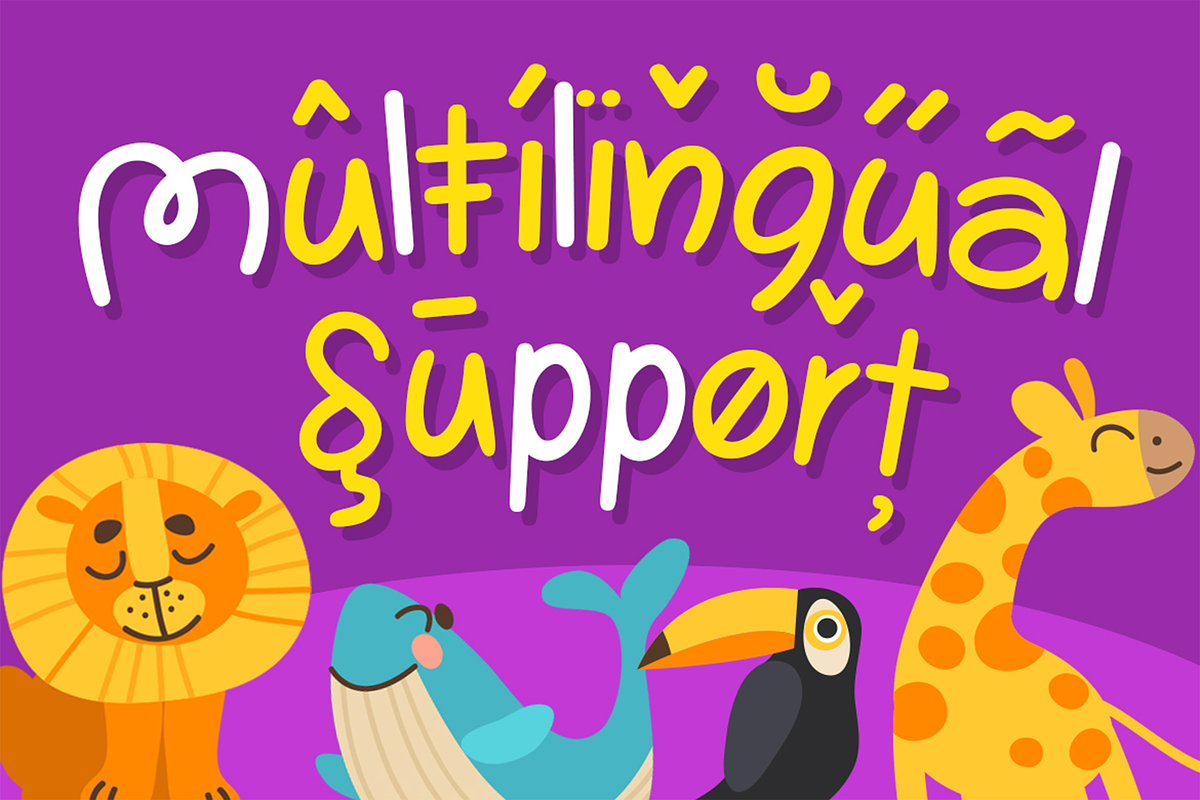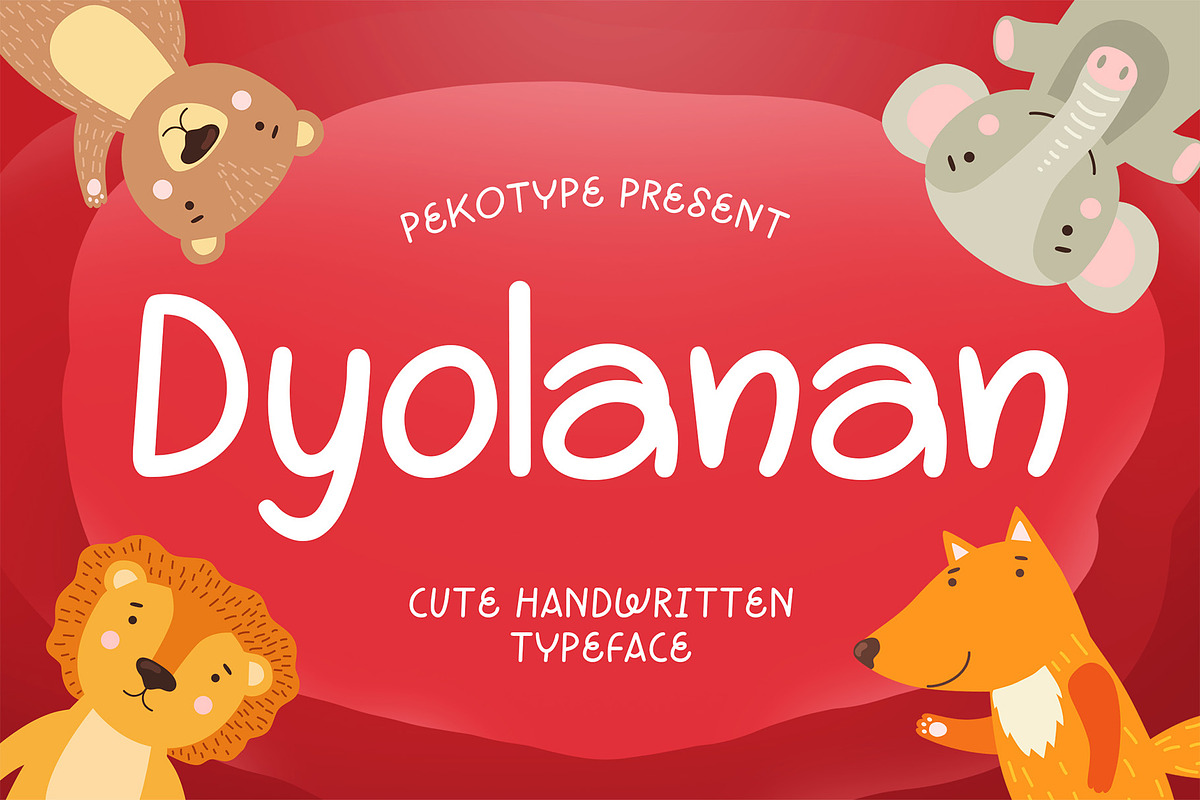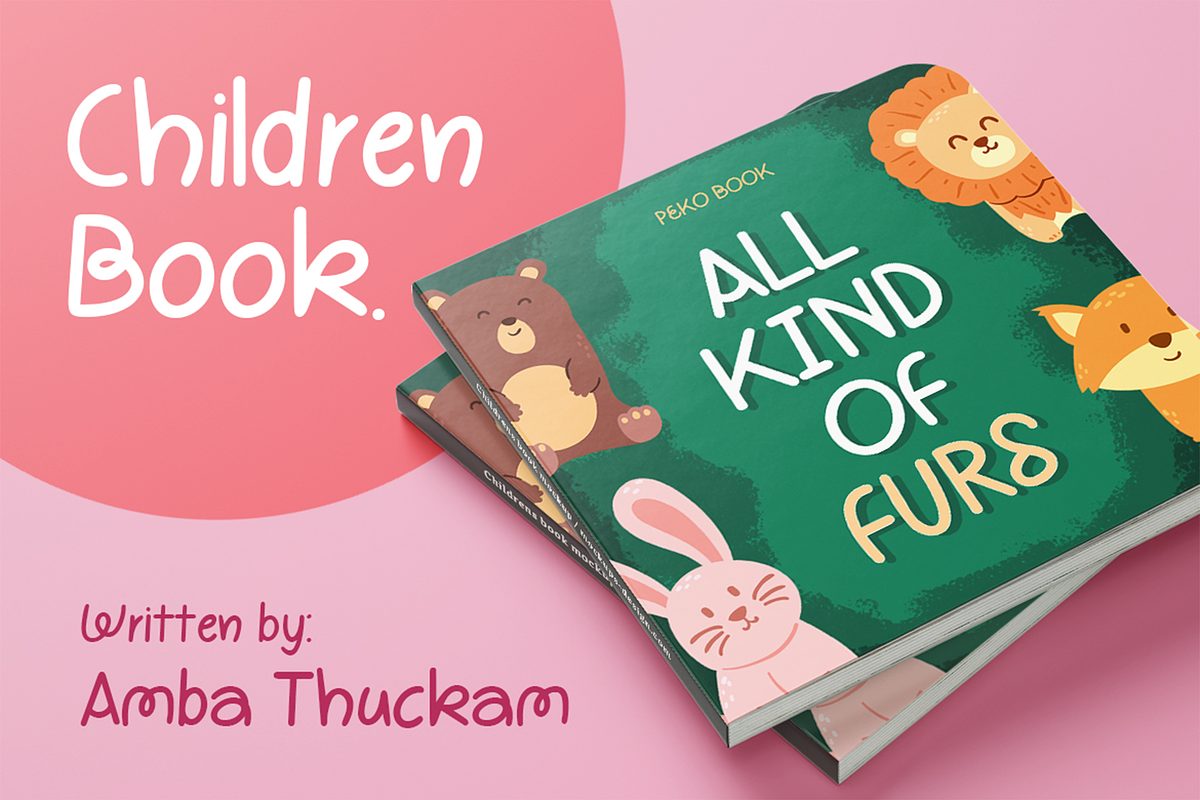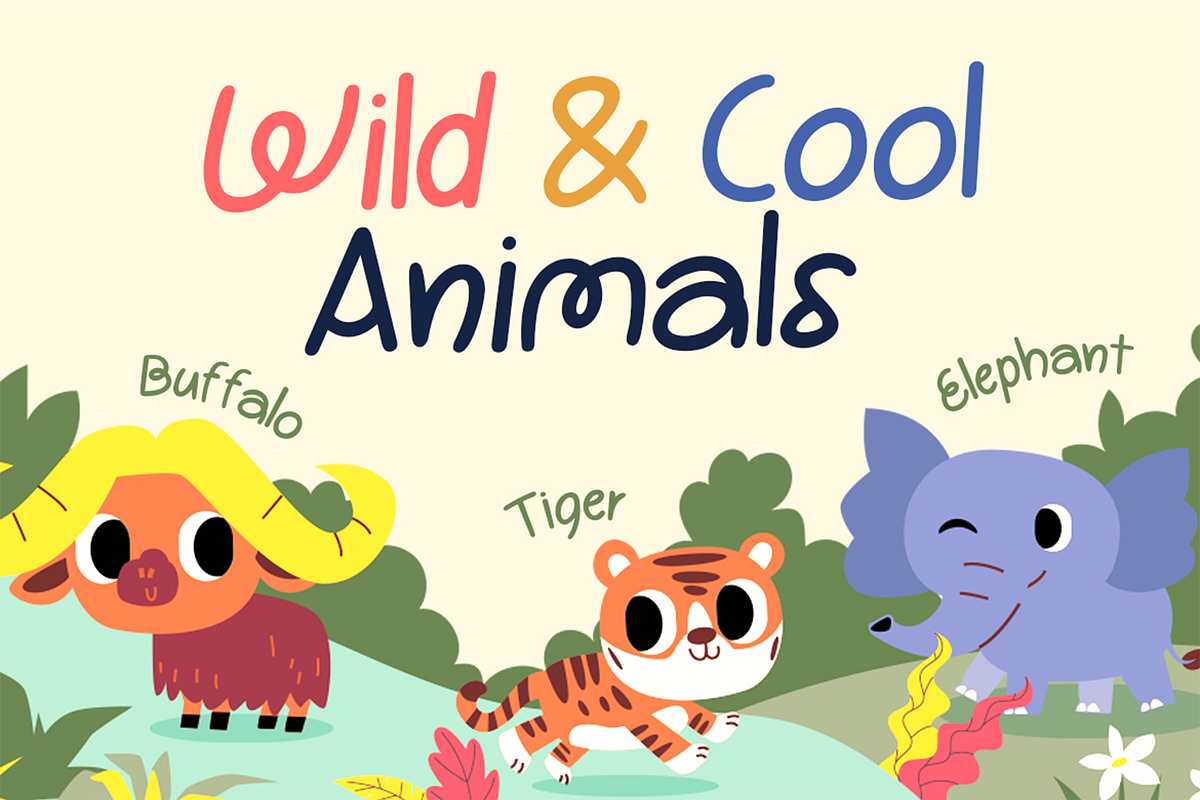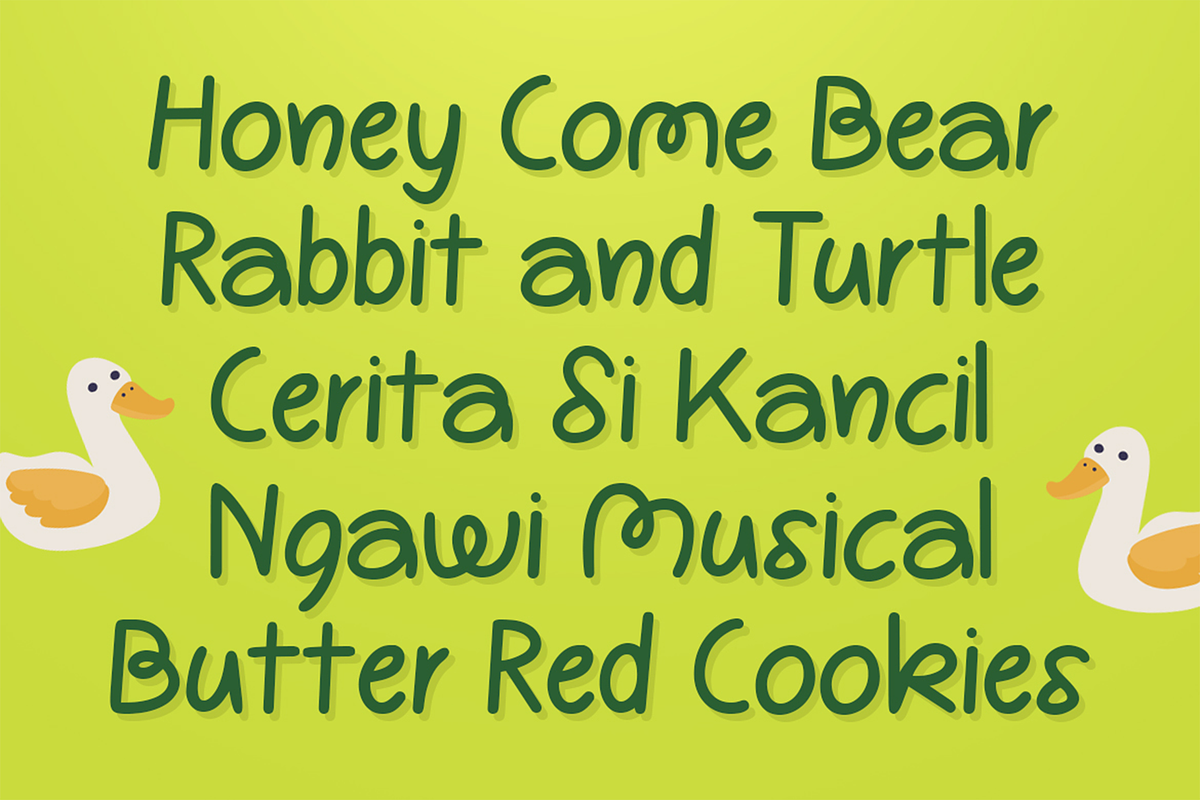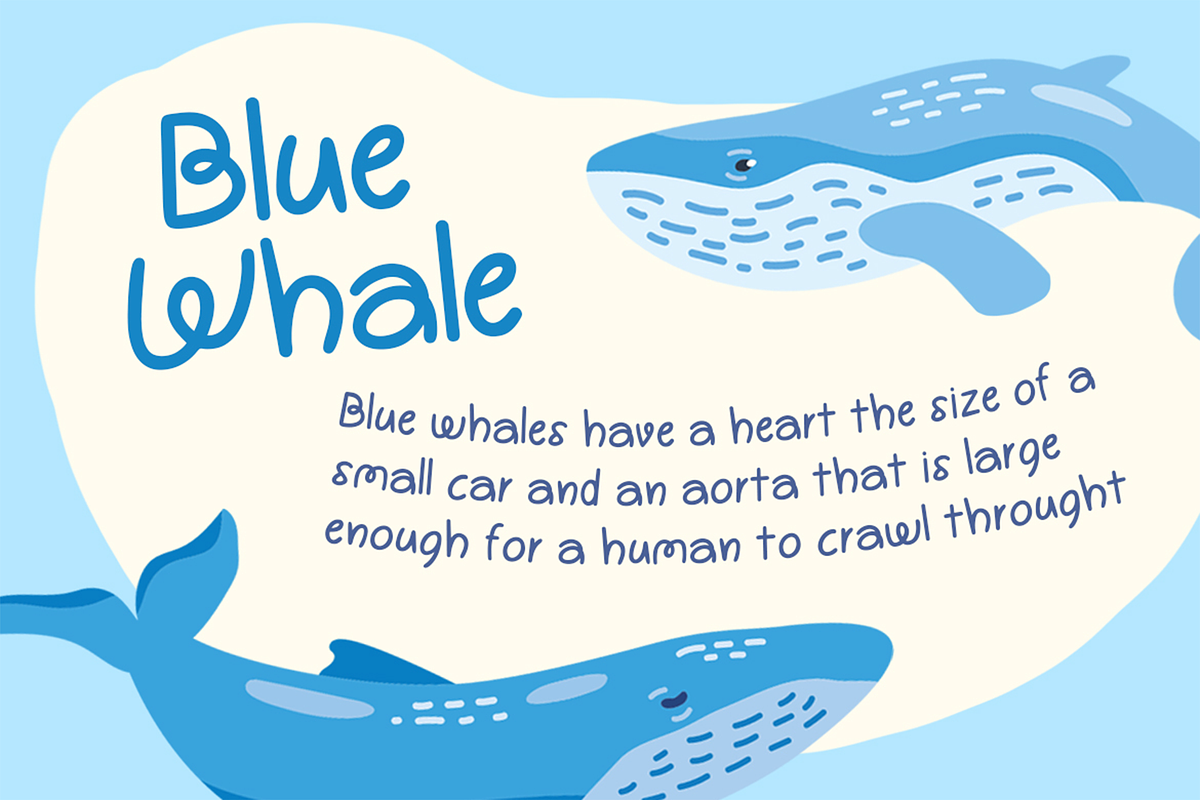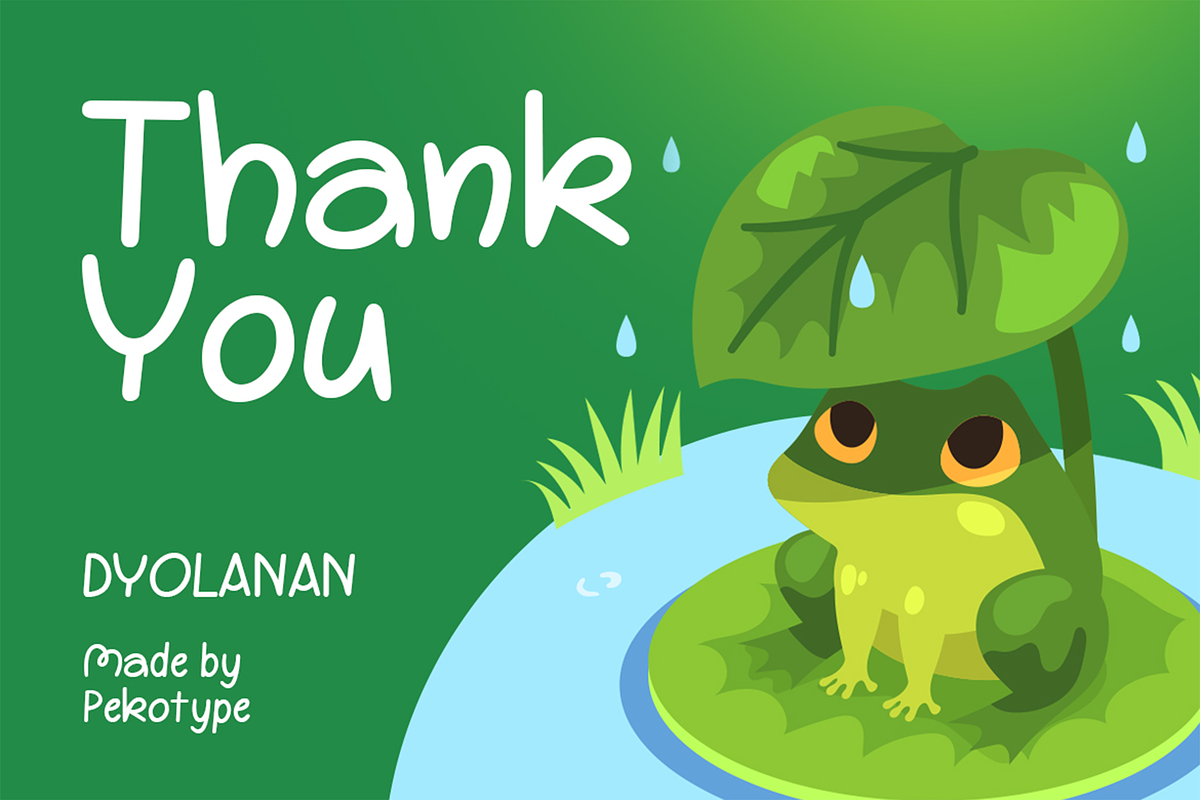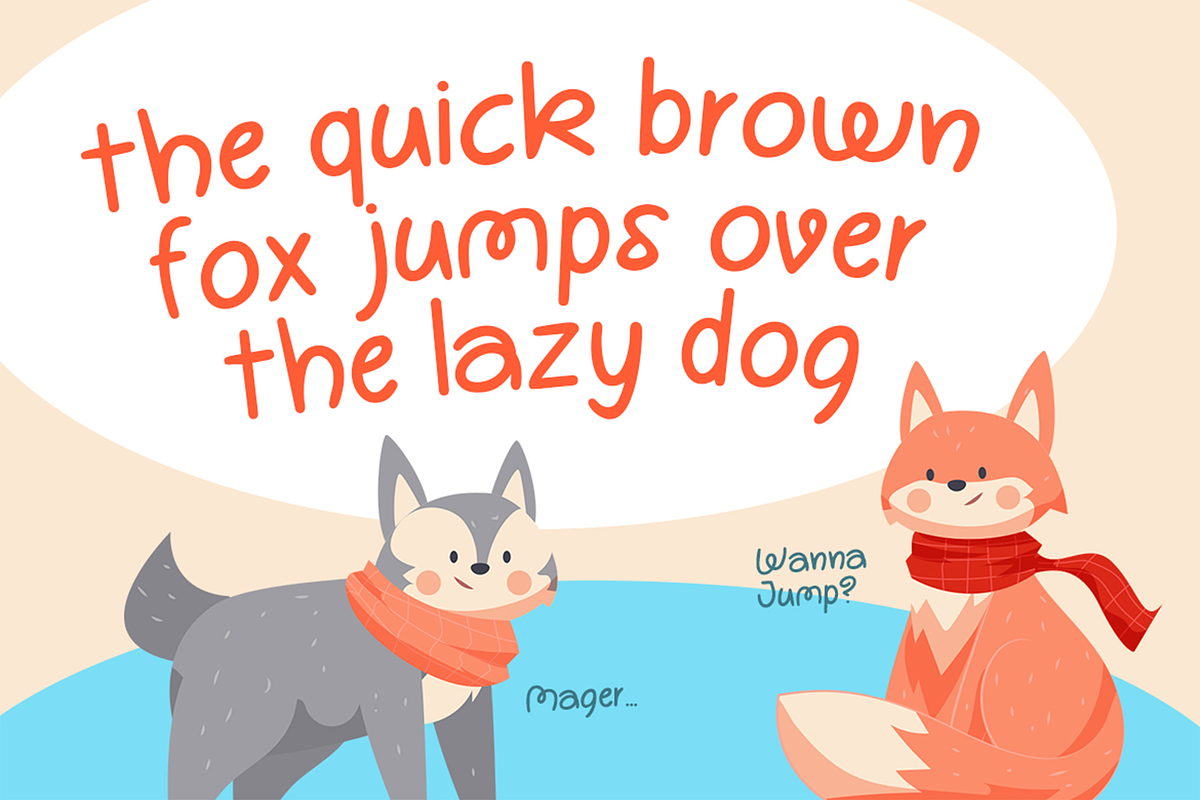
Dyolanan - Handwritten Playful Font
Introducing DYOLANAN, a playful, cute handwritten typeface that brings joy and whimsy to your designs! Perfectly crafted for branding, logos, illustration books, and children's designs, DYOLANAN’s charming and light-hearted characters evoke a sense of fun and creativity. Whether designing for kids’ products, playful packaging, or looking to add a personal, friendly touch to your project, DYOLANAN is your go-to font. Let your imagination run wild with this delightful typeface that will make your designs stand out!
- Numeral